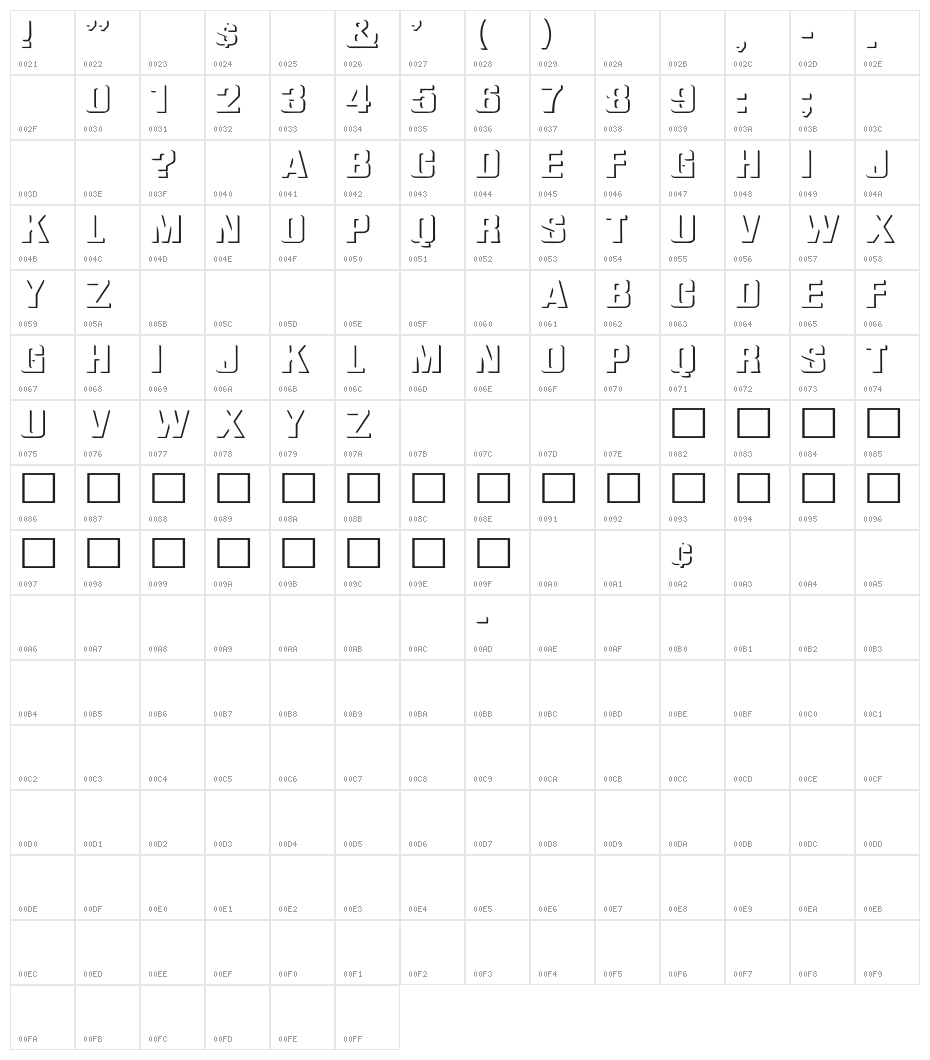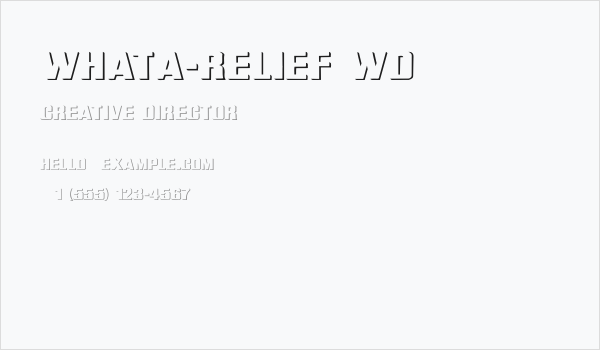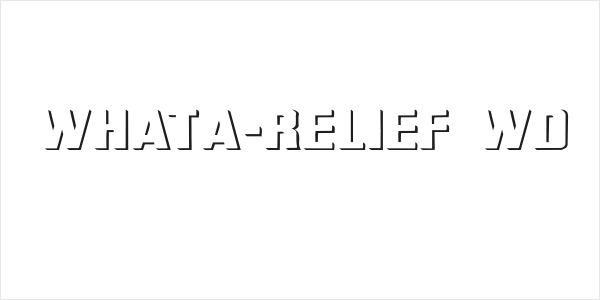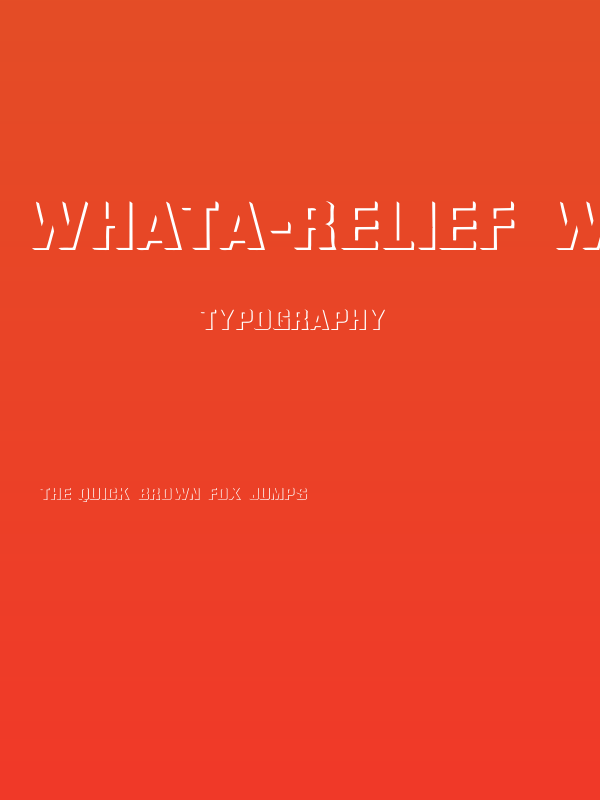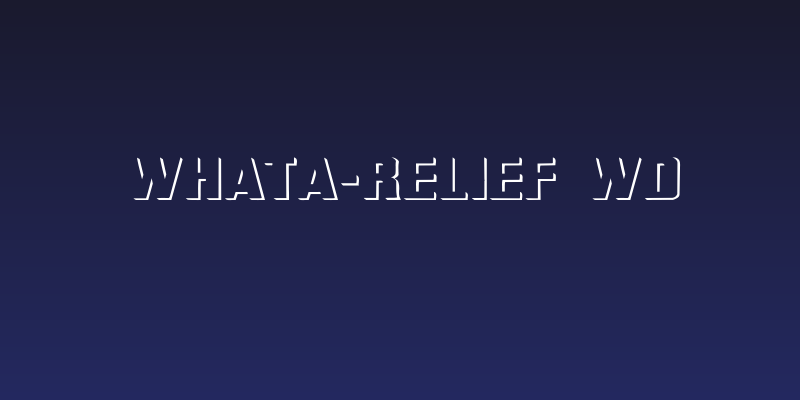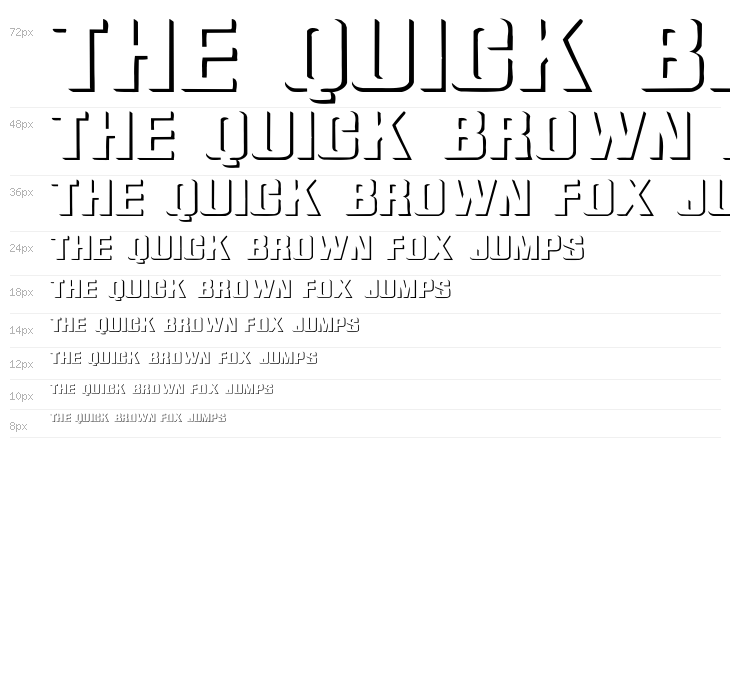
WhatA-Relief Wd Font
WhatA-Relief Wd Description
This font features a bold, stencil-like design with sharp, angular edges and a distinct cut-out style. The characters are uppercase and have a uniform thickness, creating a strong and impactful visual presence. The numbers and special characters maintain the same bold and structured appearance, making them highly legible and suitable for attention-grabbing designs. The font's unique cut-out style adds a modern and industrial feel, ideal for projects that require a bold statement.
| Proposed Projects | Ideal for posters, headlines, branding, and signage that require a bold and modern look. |